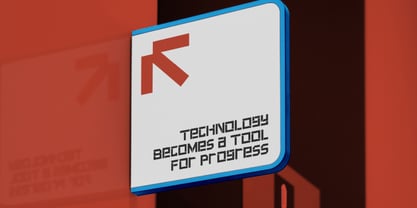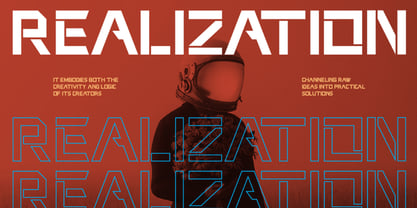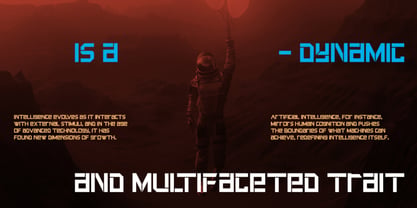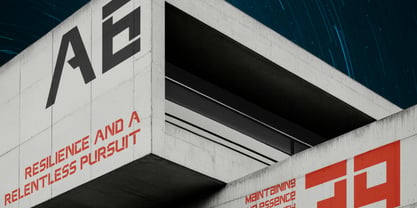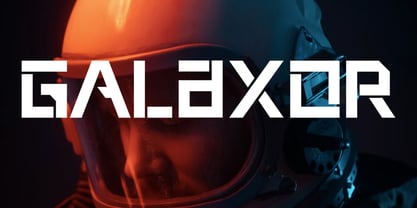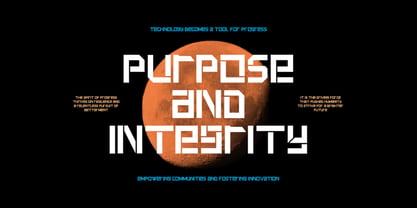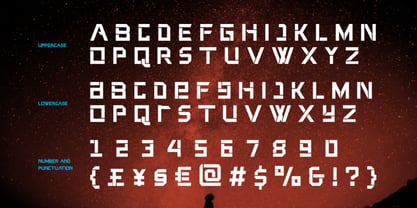
Galaxor
Galaxor is a modern futuristic display font featuring sharp geometric structures and a strong techno character. Inspired by space exploration, science fiction, and advanced technology, this typeface delivers a bold and digital aesthetic with precise angular cuts. Its clean construction and consistent proportions create a powerful visual impact for headlines, logos, and futuristic branding. Galaxor brings a professional, innovative, and forward-looking tone to both digital and print design.